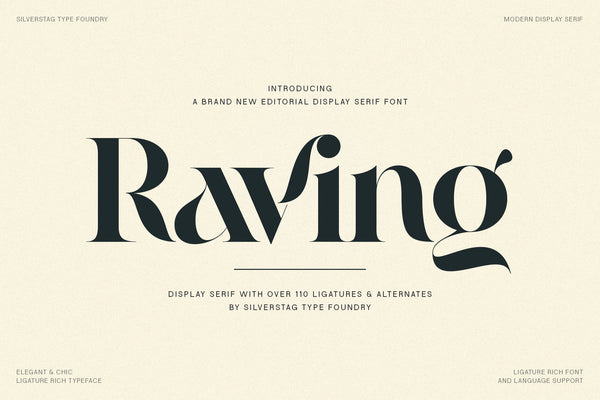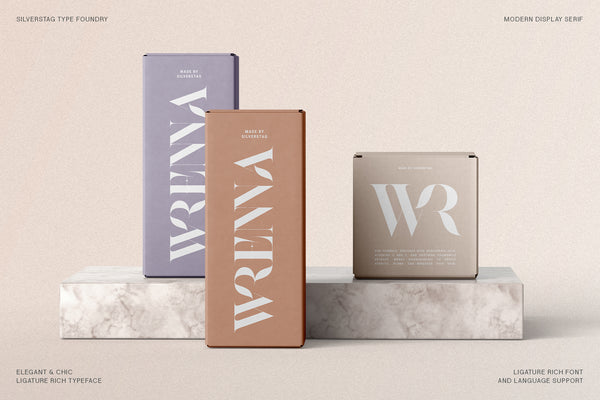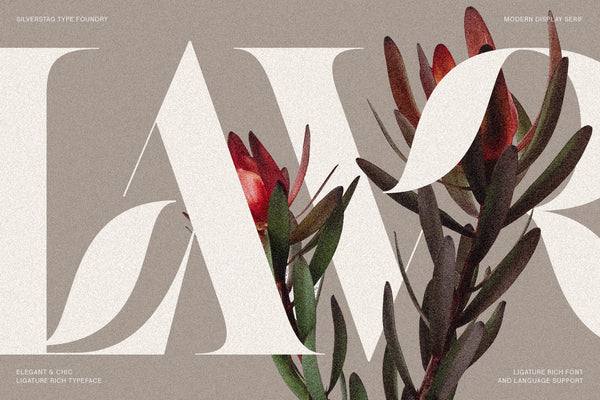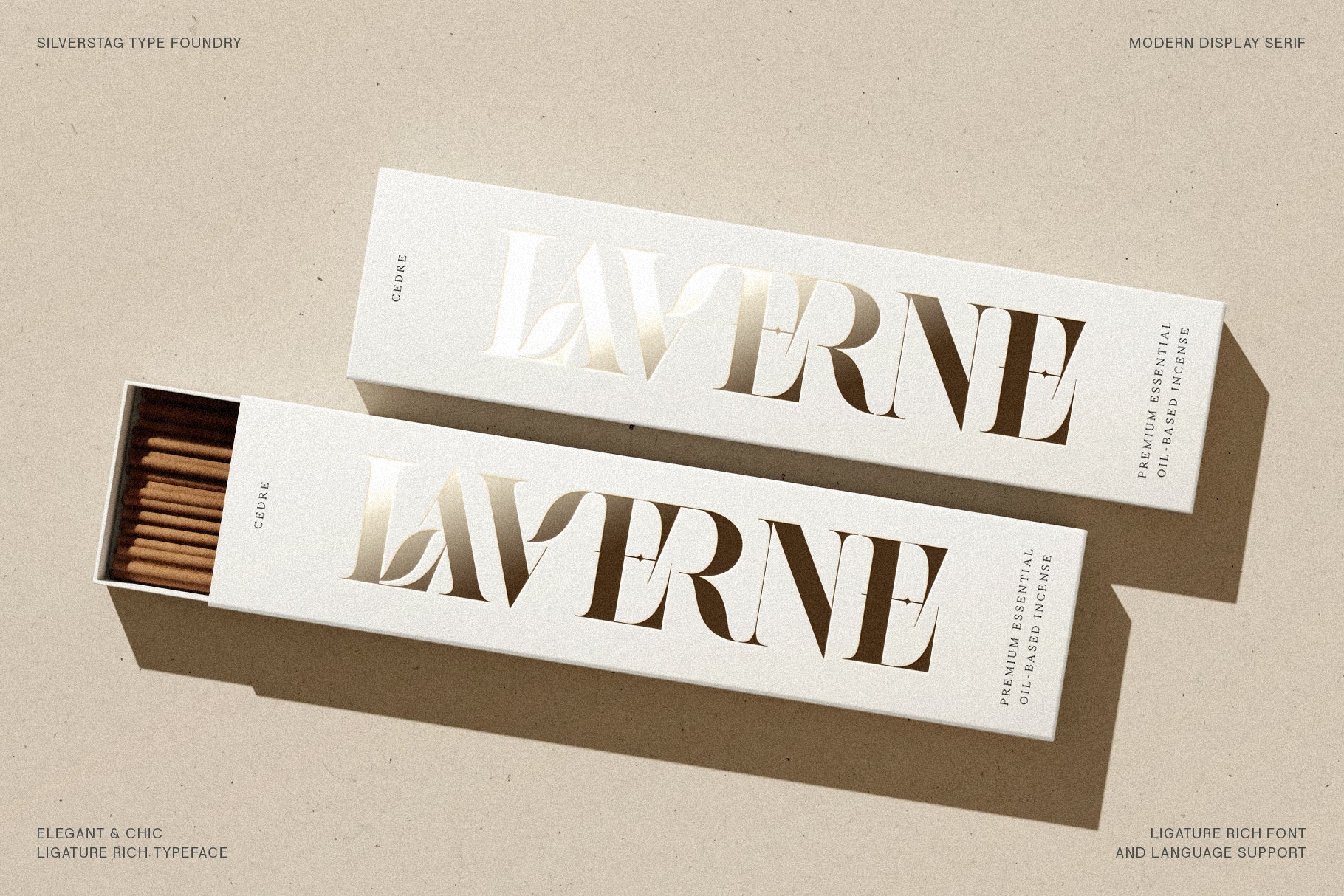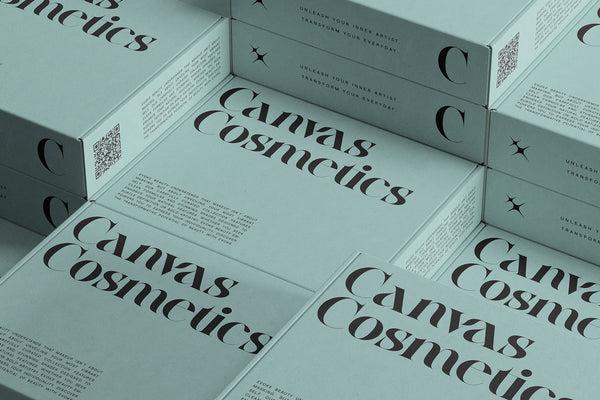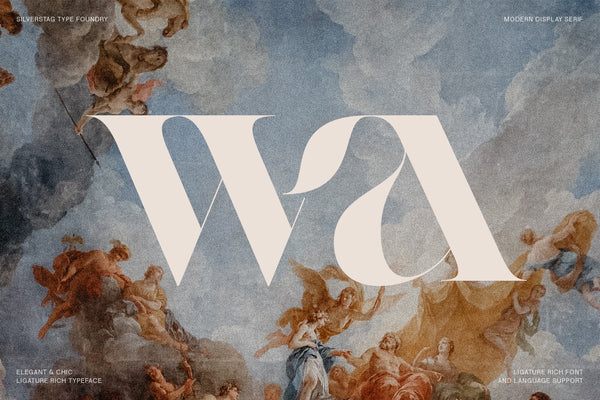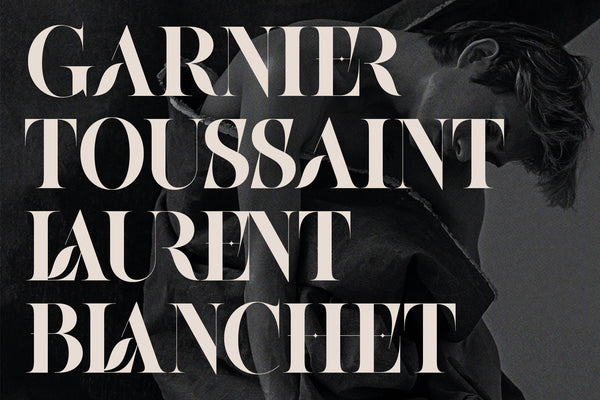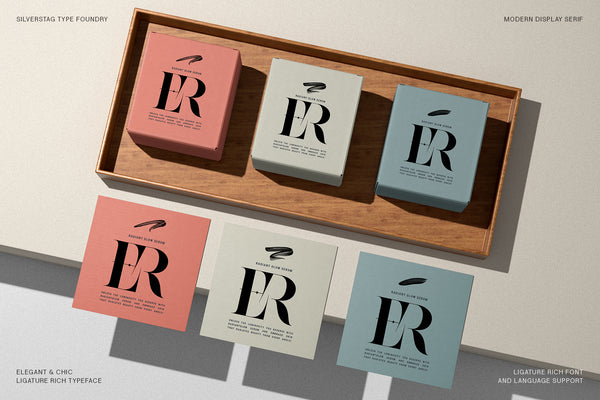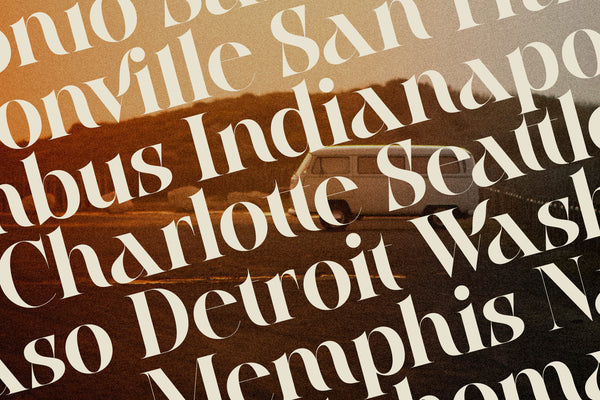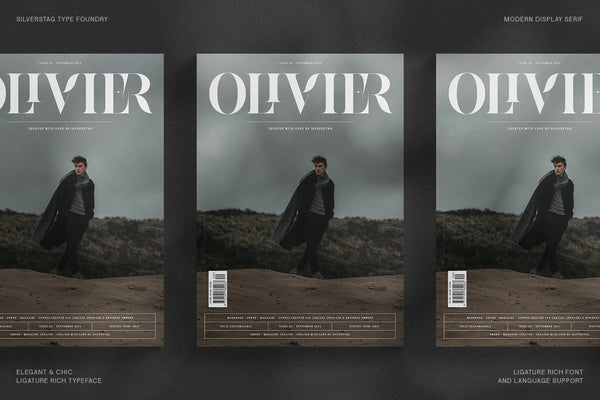
Raving is a bold editorial serif font crafted for designers who want to make a statement. With extreme contrast between razor-thin hairlines and thick, dramatic strokes, Raving is made for high-impact typography across fashion, branding, editorial layouts, and standout packaging.
This display serif includes 110+ ligatures and stylistic alternates, giving you endless creative control over every word. Its sharp details and expressive letterforms bring sophistication and energy to modern design projects—ideal for striking headlines, luxurious logos, and cutting-edge visual storytelling.
Whether you’re designing for print or digital, Raving’s elegant tension and stylish flair make every layout pop. And with multilingual support for 90+ languages, it’s ready to captivate a global audience.